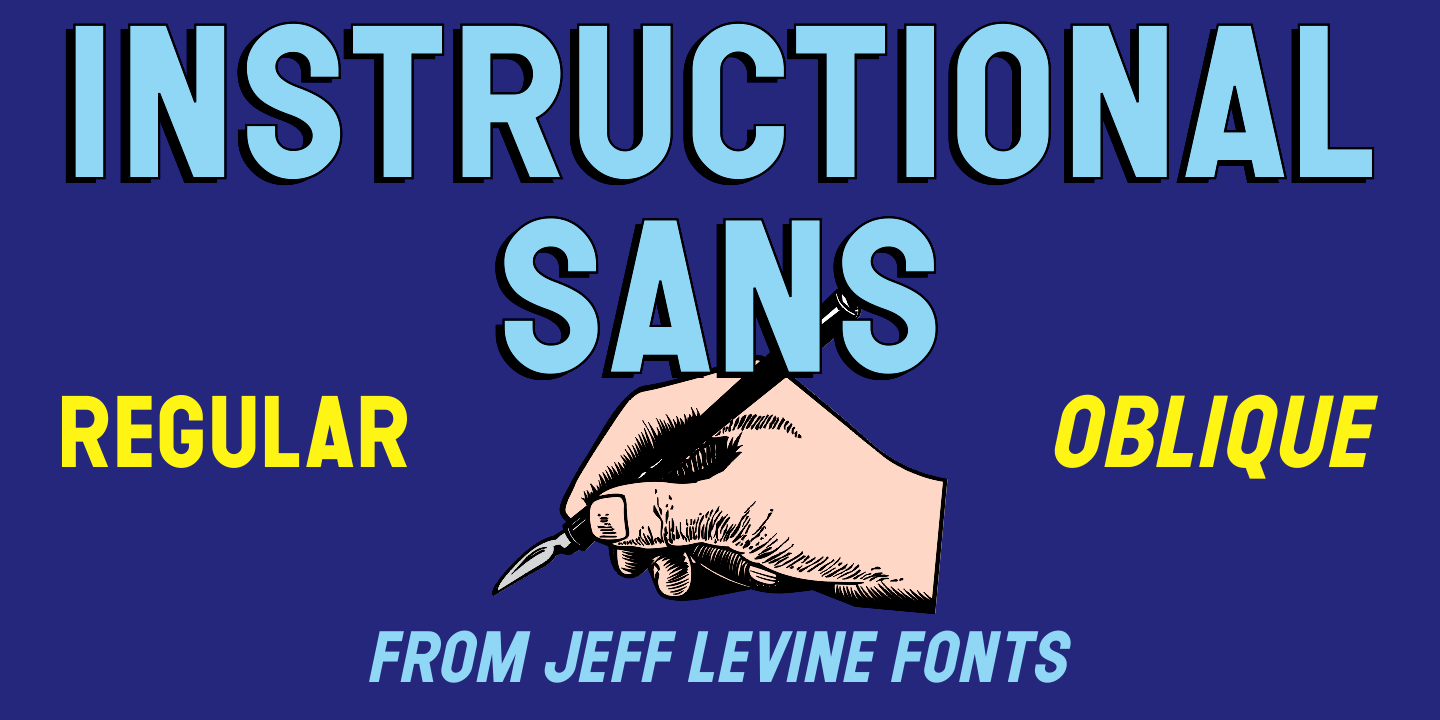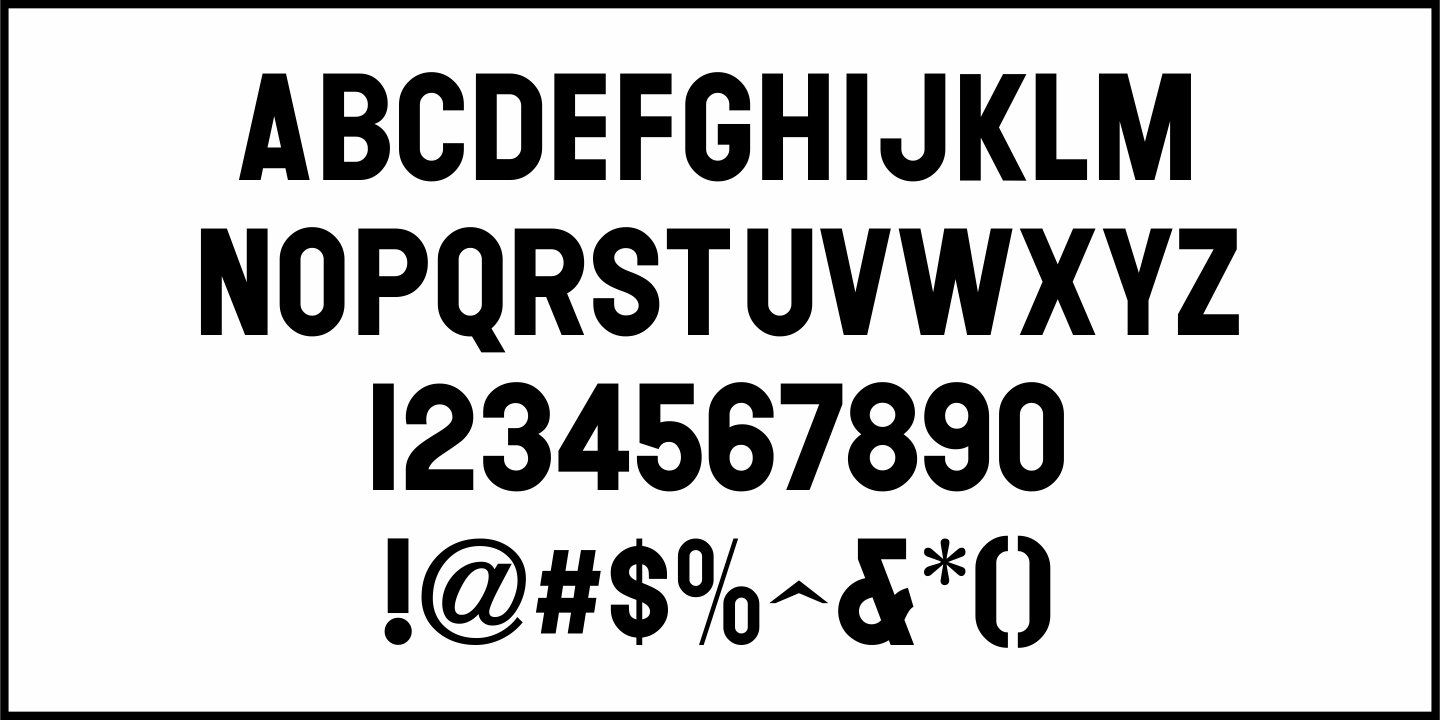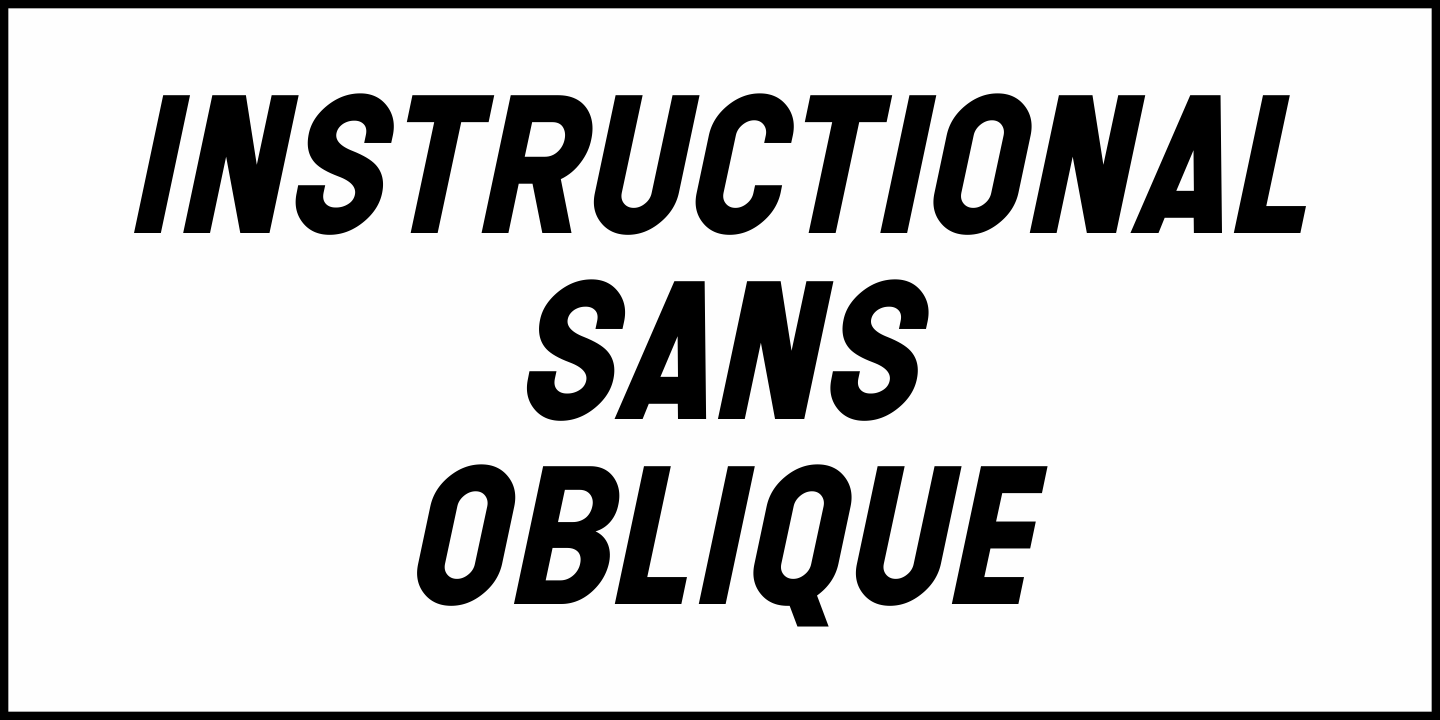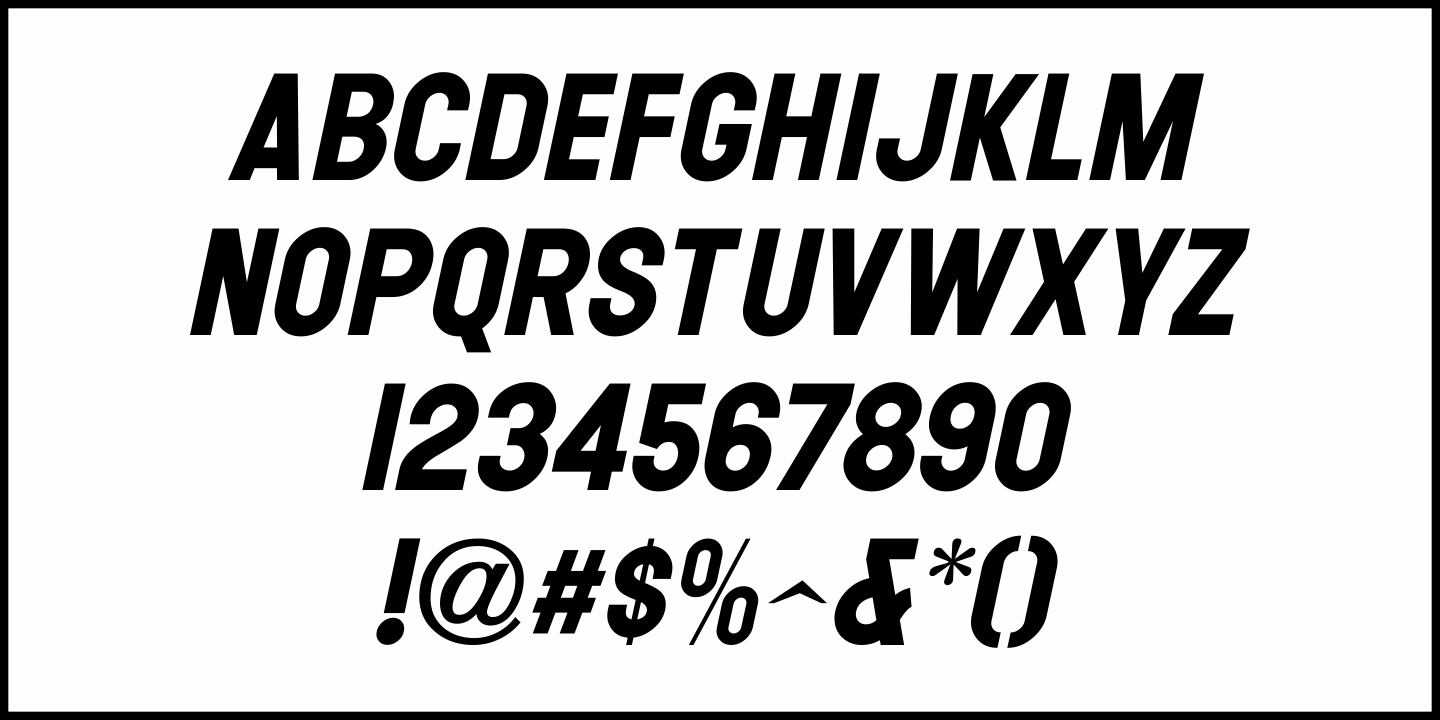
Instructional Sans
A basic sans serif alphabet prepared by William Dressler for lettering instruction was reprinted in the 1952 book "Lettering Art in Modern Use" by Raymond A. Ballinger.
This served as the design model for Instructional Sans JNL, which is available in both regular and oblique versions.